Hooray, winter is ending, and spring is on the way! And the third month of 2025 brings a captivating collection of typefaces that showcase the immense creativity and technical innovation driving contemporary type design.
This month's selection spans an extraordinary range of approaches, from Damien Gautier's poetic exploration of urban landscapes in Naancy to Applied Design's transformative accessibility work with Atkinson Hyperlegible Next.
So read on as we present six of the most compelling font releases of March 2025. Each offers a unique perspective on how typography can communicate, solve design challenges and reflect cultural nuances.
1. Naancy by Damien Gautier
Naancy is as a multifaceted typeface born from five years of careful observation and design. Inspired by the French city of Nancy and its rich art and design heritage, the font beautifully synthesises Art Nouveau's organic curves with precise digital typography.
Drawing from architectural rhythms and natural forms, Damien Gautier has created a typeface that transforms dynamically. Initially appearing as a tight, geometric titling font, Naancy evolves through intricate ligatures and decorative letters, revealing a remarkable versatility. The design reflects Gautier's keen eye for urban landscapes, drawing parallels between typeface construction and the meticulous craft of metalwork.
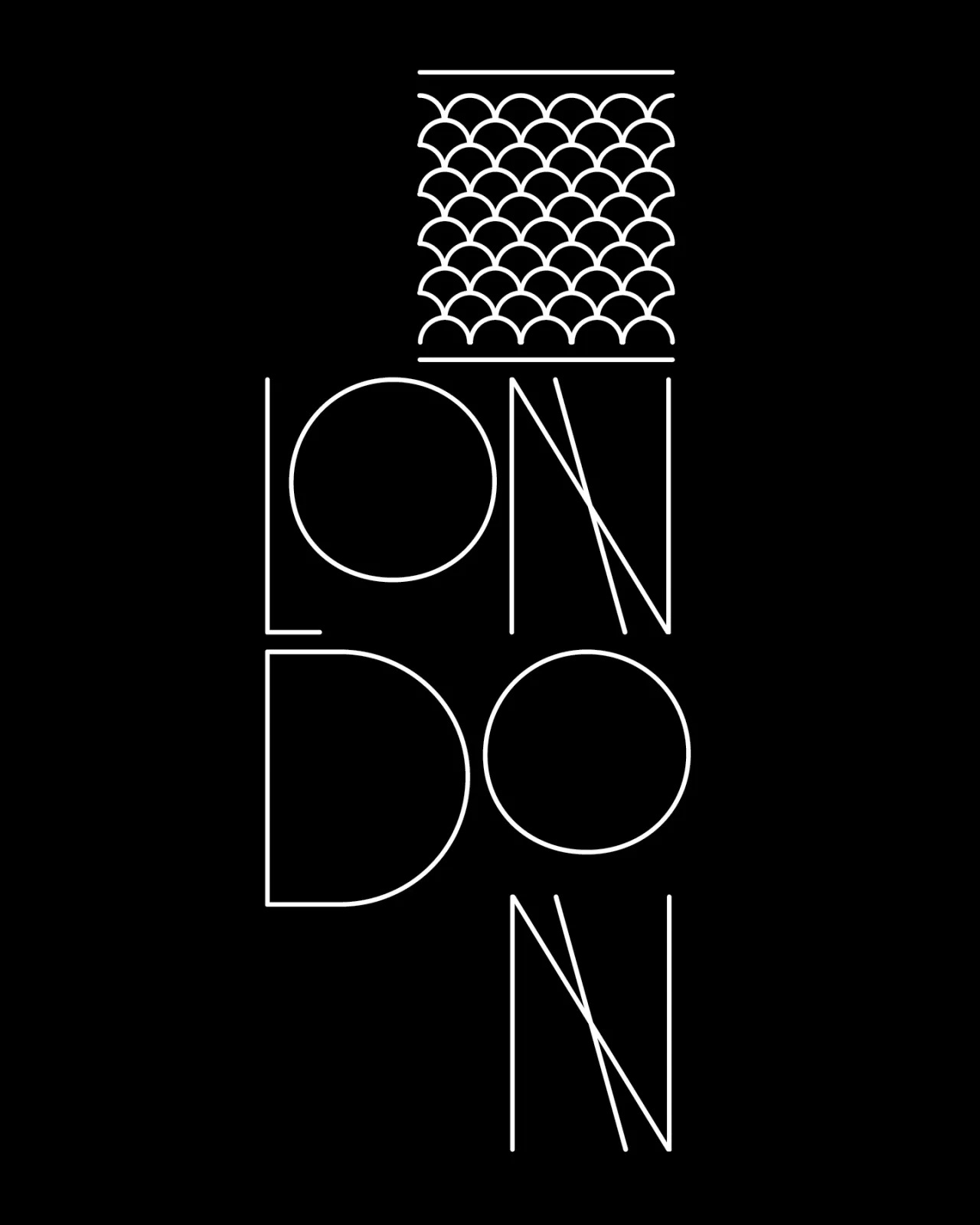
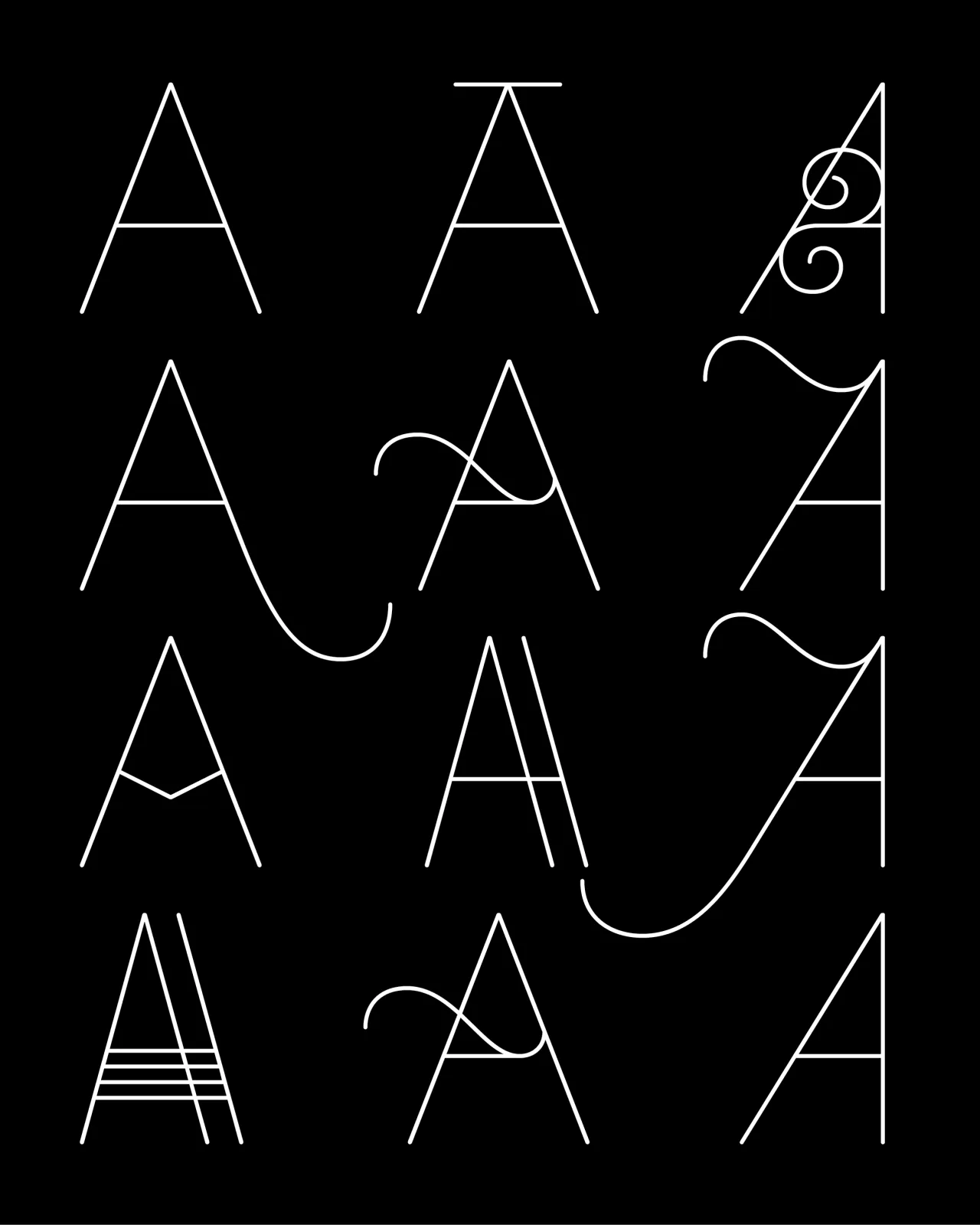
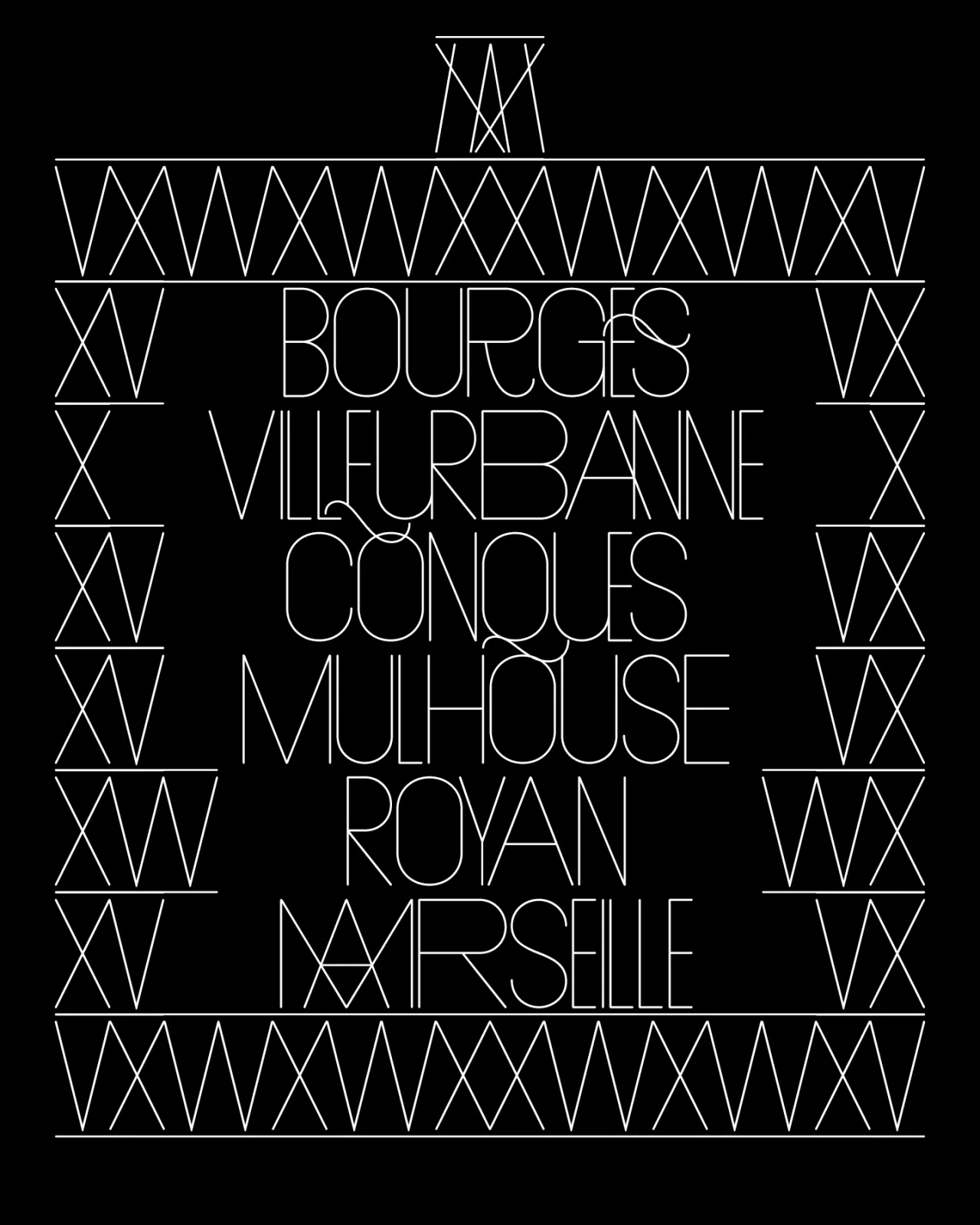
2. Yet Grotesk by Emmanuel Besse
Yet Grotesk represents a thoughtful reimagining of the ubiquitous sans serif genre. Designed by Emmanuel Besse with assistance from Hugues Gentile, this 18-style typeface offers a nuanced take on a design classic, balancing familiarity with distinctive character.
Inspired by legendary grotesks like Akzidenz Grotesk and contemporary forms like Arial, Yet Grotesk aims to be a versatile, functional typeface. Its wide capitals, tight spacing and robust text blocks make it ideal for branding and editorial design, proving that even the most common typographic form can be reinvented with care and insight.
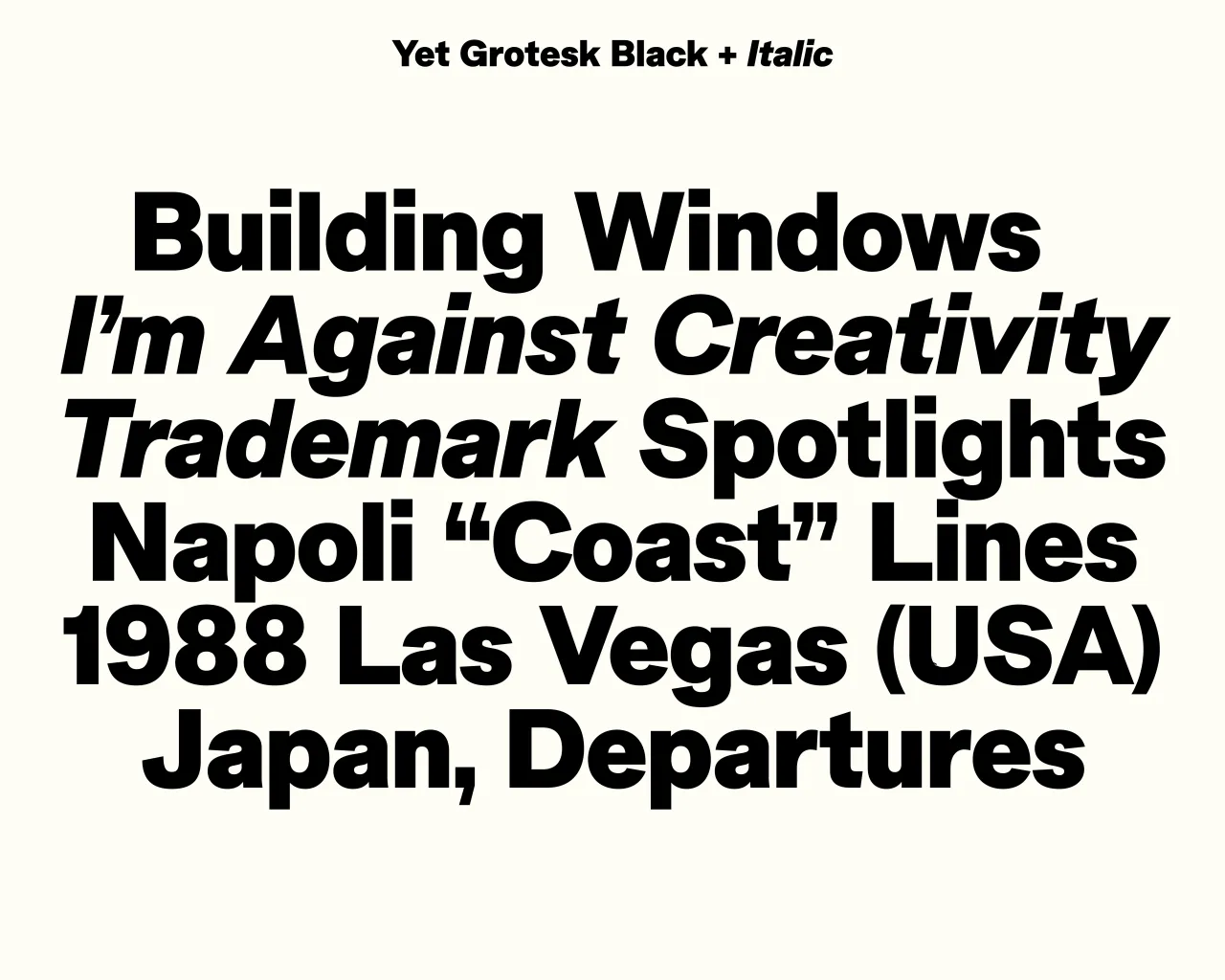
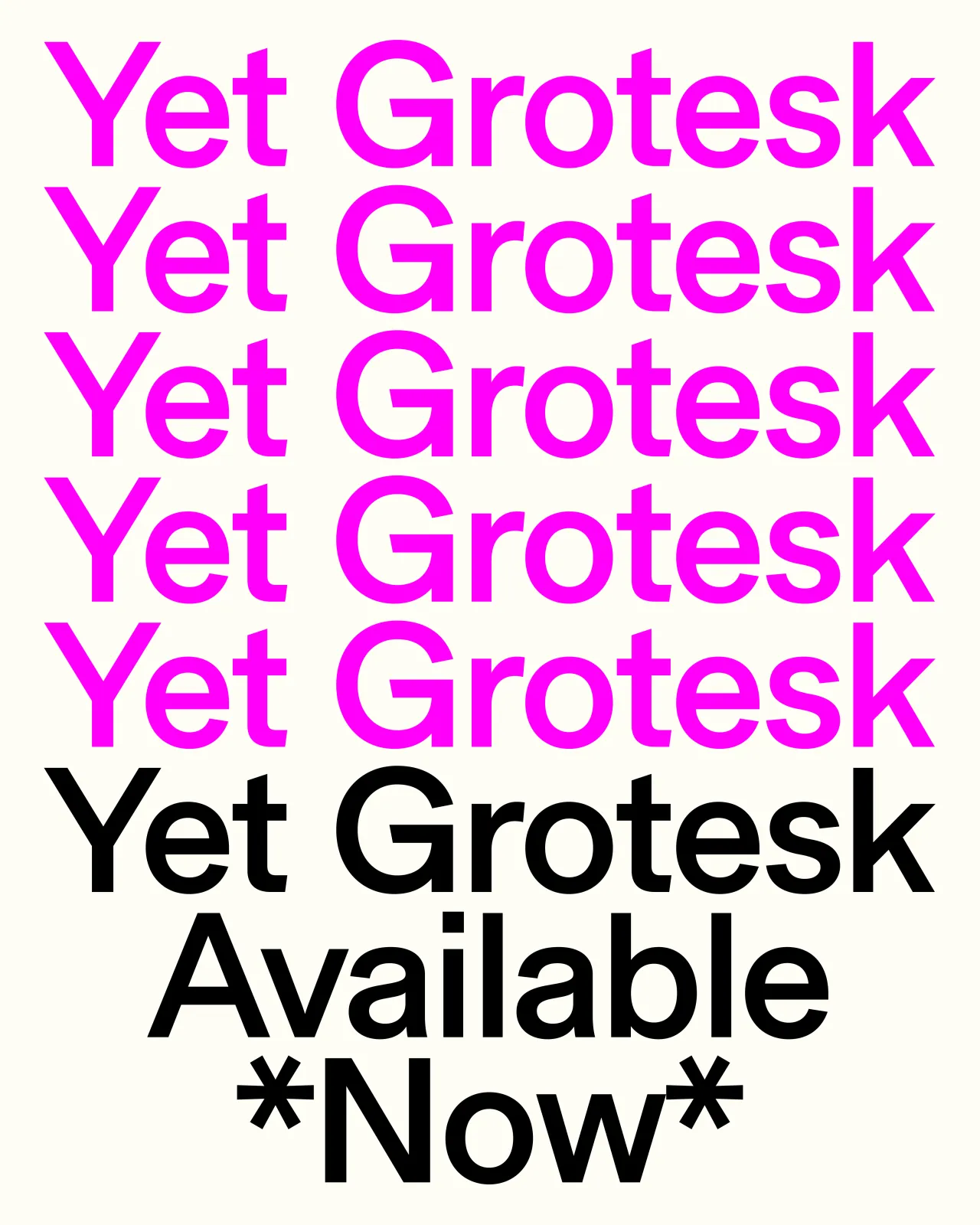
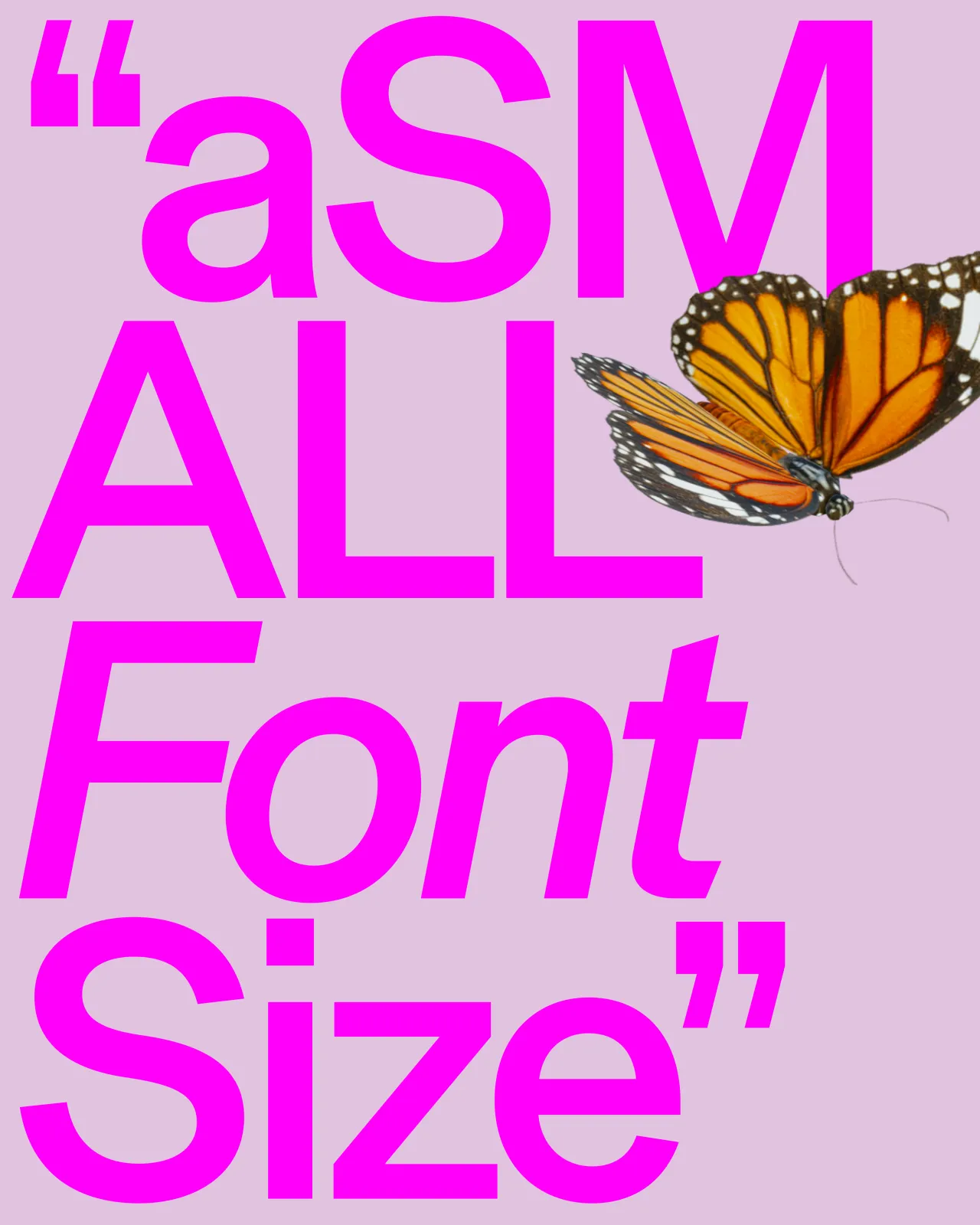
3. Atkinson Hyperlegible Next by Applied Design
Atkinson Hyperlegible Next marks a groundbreaking advancement in accessible typography. Originally crafted in 2019 to enhance readability for people with low vision, it has now been expanded from two to seven weights, plus language support has been boosted from 27 to over 150. As such, the typeface addresses the needs of 285 million people worldwide living with vision impairment.
In short, with 4,464 characters per font and a new variable format, Atkinson Hyperlegible Next is not just a typeface but a powerful tool for global communication. Developed in partnership with the Braille Institute, this enhanced version of the award-winning typeface represents a profound commitment to inclusive design.
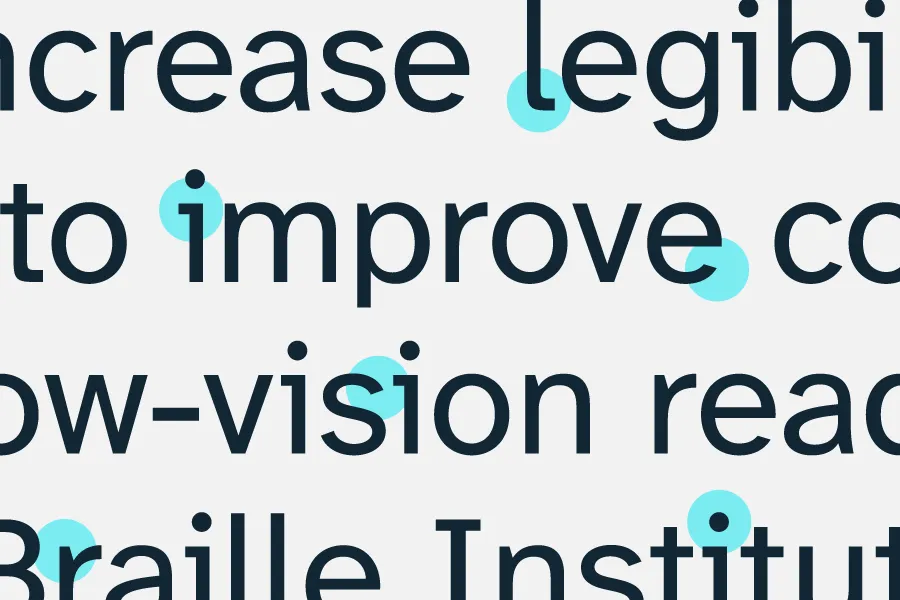
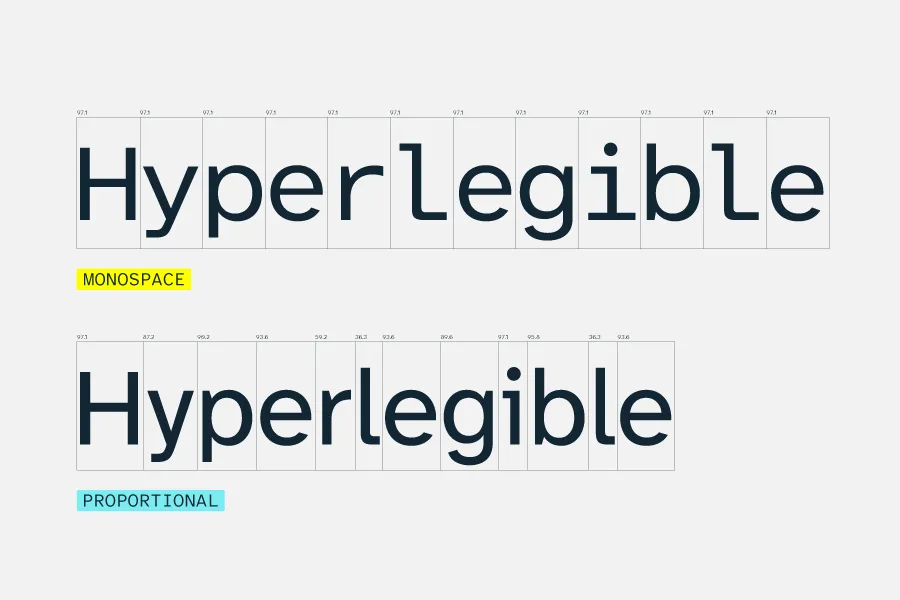
4. Fraise by Dalton Maag
Fraise brings a fresh and fruity approach to the humanist sans serif genre. Inspired by the work of French typeface designer Roger Excoffon (1910-1983), this typeface features a tall x-height and distinctive round shapes that provide exceptional versatility across design and branding applications.
With support for over 790 languages and an extensive weight axis, Fraise demonstrates how contemporary type design can simultaneously honour historical influences and meet the needs of modern global communications.
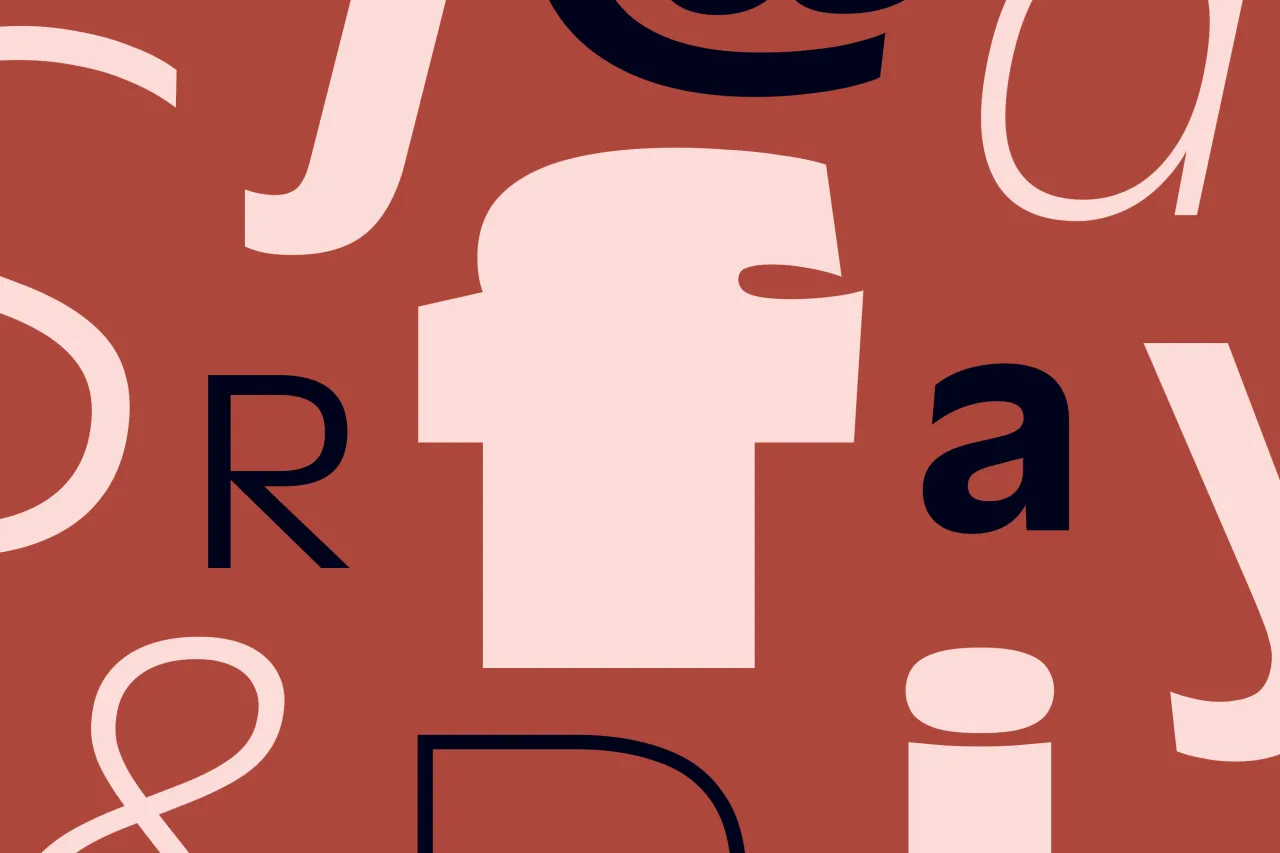
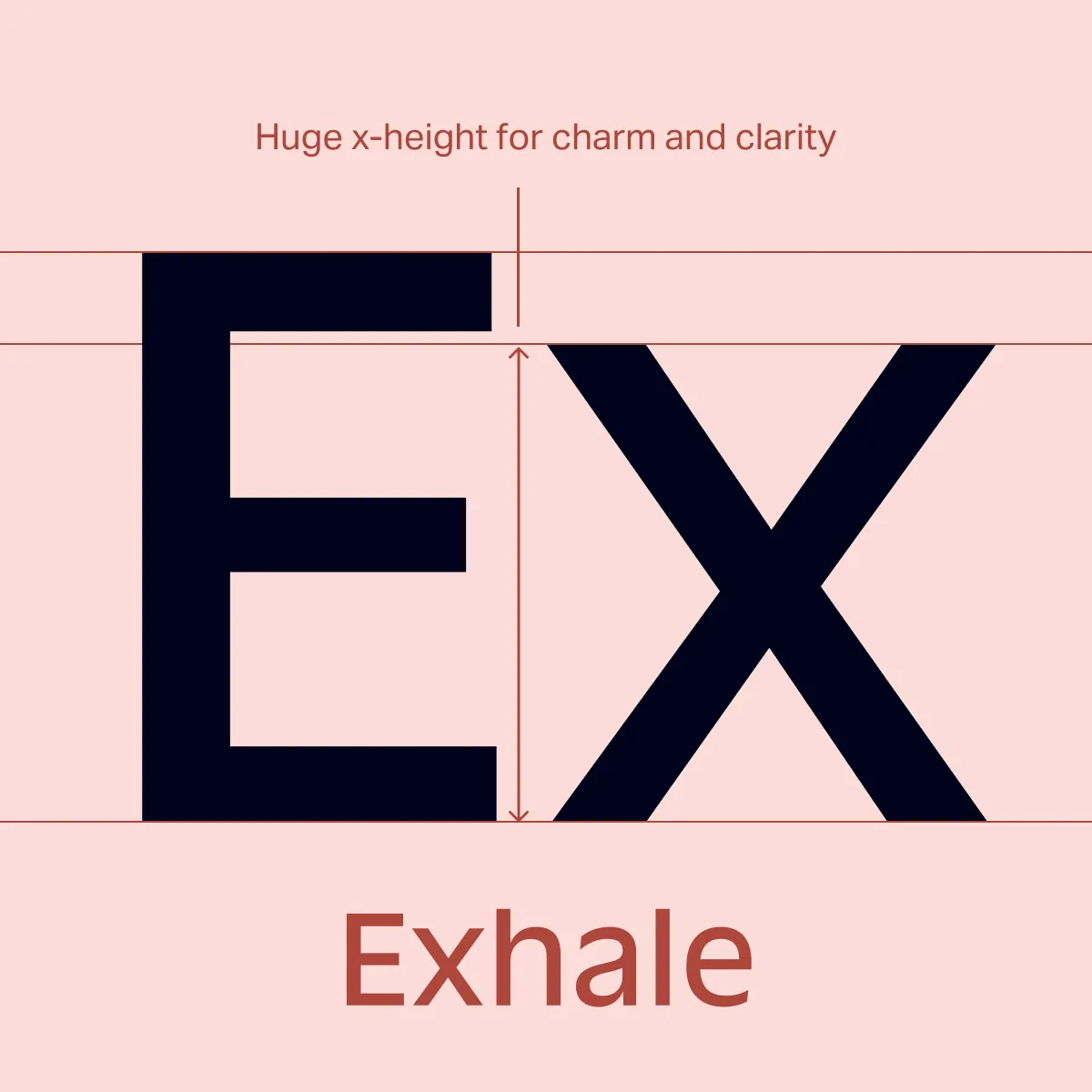
5. Autoscape by LLineto
LL Autoscape has been on a fascinating typographic journey, transforming from a 1980s computer font to a sophisticated contemporary typeface. Now redesigned by Minjong Kim, who joined Lineto in late 2023, the font maintains its mechanical roots while introducing subtle optical refinements that enhance readability.
With both angular and rounded versions, Autoscape offers a variable range that makes it suitable for everything from coding environments to creative design projects. It embodies the evolving nature of digital typography.
6. Boom Sans by Positype
Designed to ensure messages stand out, Boom Sans is the perfect way to make a bold statement with your design. Available in five widths, eight weights, and matching italics, this expressive sans-serif features balanced curves and smooth transitions that command attention across various design contexts.
With its comprehensive range and confident design, Boom Sans exemplifies how contemporary type families can provide designers with unprecedented creative flexibility.